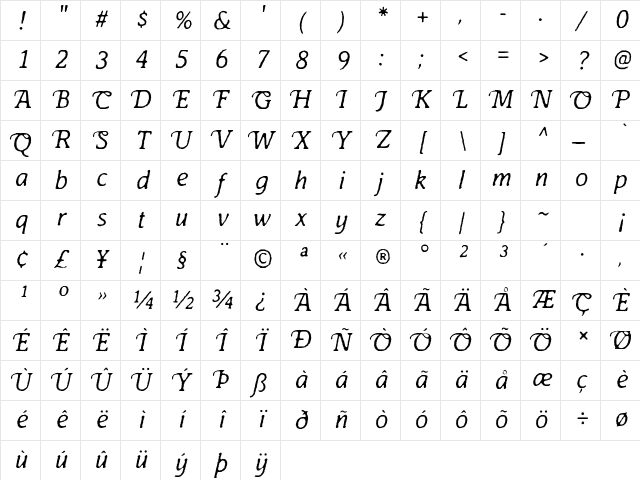
Antihistory Italic
Design Context for Antihistory
Antihistory is a composed and adaptable typeface that performs quietly and consistently across a wide range of design contexts. The slanted form adds forward momentum and visual energy.